Green Book Font
The Green Book font embodies the refined simplicity seen in the Academy Award–winning film Green Book. The movie’s title typography delivers a sense of sincerity and warmth that parallels the story’s emotional depth. Its clean sans-serif style, paired with smooth letter spacing and restrained weight, reflects mid-20th-century design aesthetics—balanced, elegant, and timeless. This design direction mirrors the film’s ability to merge compassion and realism within a visually classic framework.
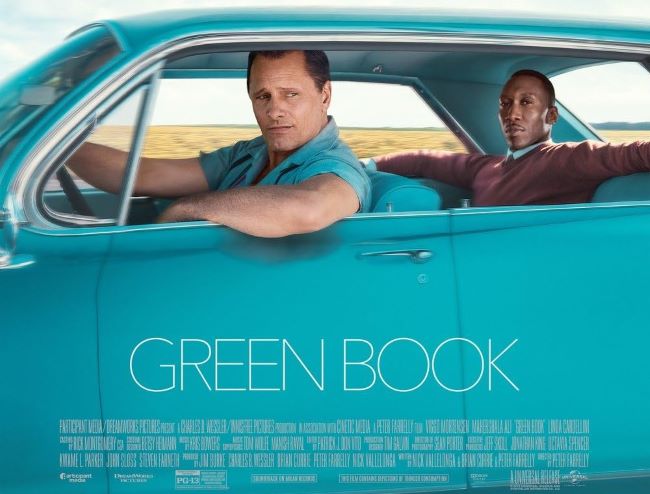
Although no official Green Book font exists, several free alternatives emulate its crisp and cinematic appeal. Fonts like geometric or humanist sans-serifs reproduce the clarity and harmony of the original title, making them ideal for branding, posters, or editorial layouts that need a professional yet nostalgic touch.